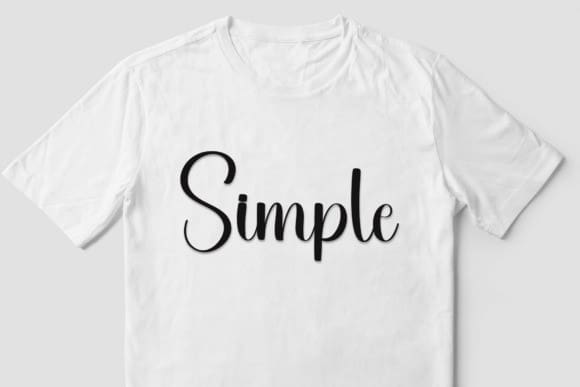
Underline Pillow Font
Underline Pillow Font is a stylish handwritten font with a casual, personal touch. It features smooth, flowing letters with a subtle underline, adding emphasis and flair to your text.